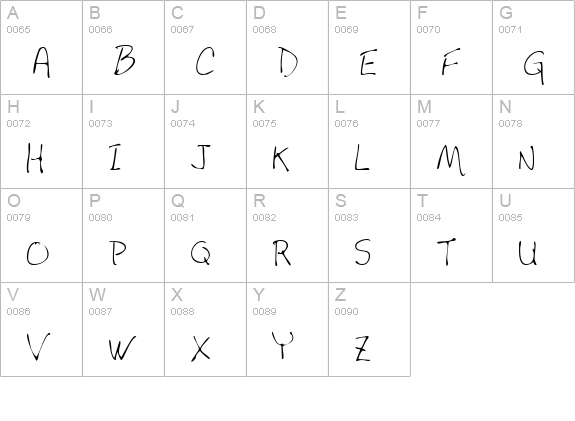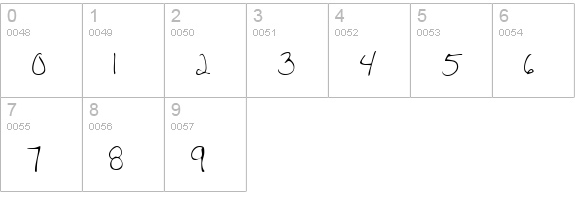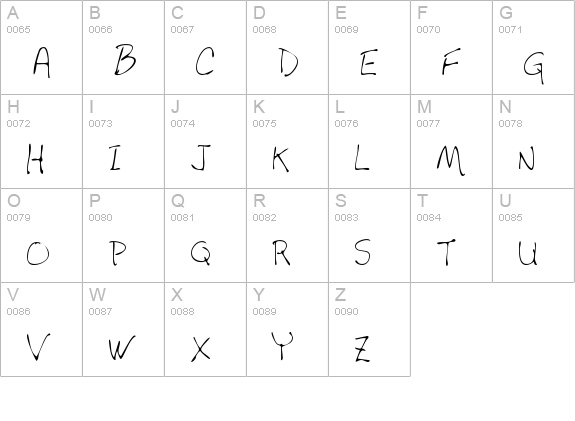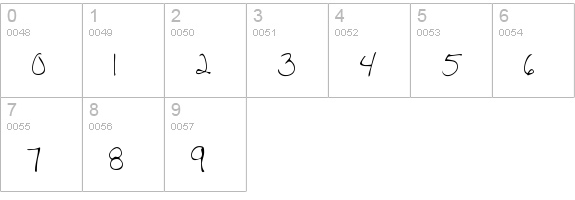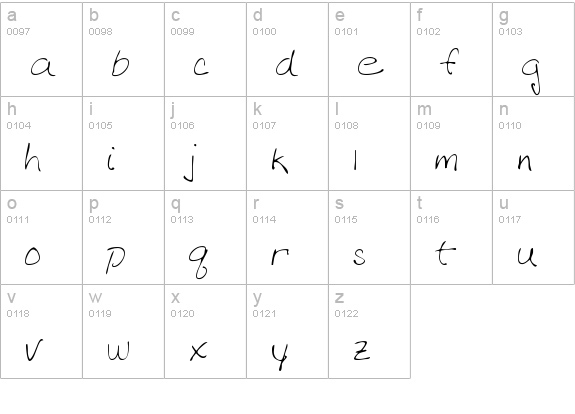
DebbiesHand Regular is the standard, neutral variant in the DebbiesHand typeface family \xE2\x80\x94 well suited to general body text, paragraphs, and standard typographic work.
DebbiesHand Regular font is a charming and elegant typeface that exudes a sense of warmth and friendliness. Its smooth lines and flowing curves give it a handwritten quality that is perfect for adding a personal touch to your designs. Whether you're creating invitations, greeting cards, or branding materials, DebbiesHand Regular is sure to make a lasting impression. And the best part? DebbiesHand Regular font is available for free download at FontsMarket.com! So go ahead and add this delightful font to your collection today and let your creativity shine.